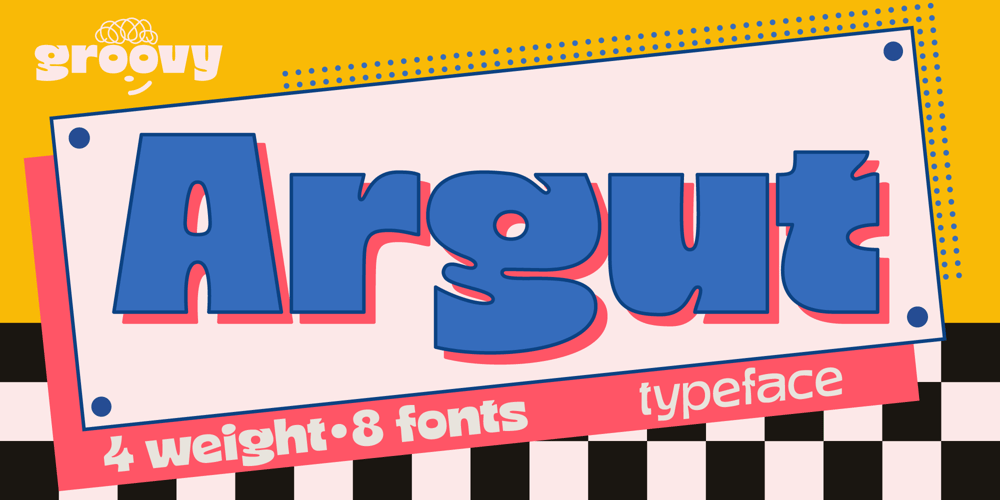
Argut Font Family was designed by Tatiana Yunina and published by Mira. Argut contains 8 styles and family package options. Introducing Argut, a playful yet refined typeface that captures the essence of groovy design with a modern twist. With its fun, whimsical curves paired with clean, strict lines, Argut brings a perfect balance of joy and professionalism to your projects. Ideal for posters, branding, and any creative work that needs a touch of retro flair with a contemporary edge. Argut is your go-to font for making a statement with style and precision.